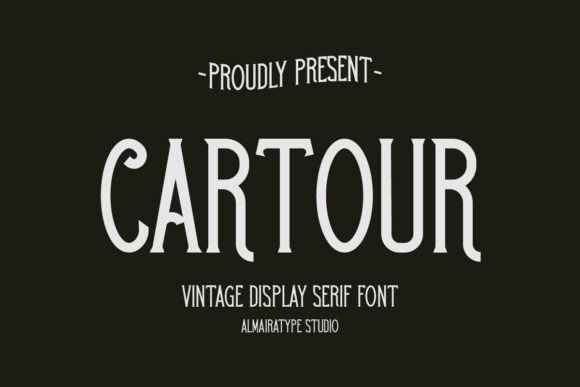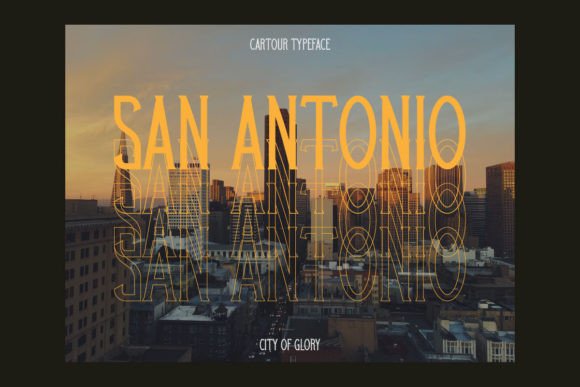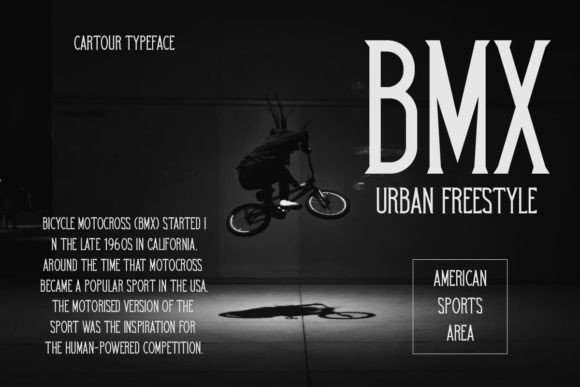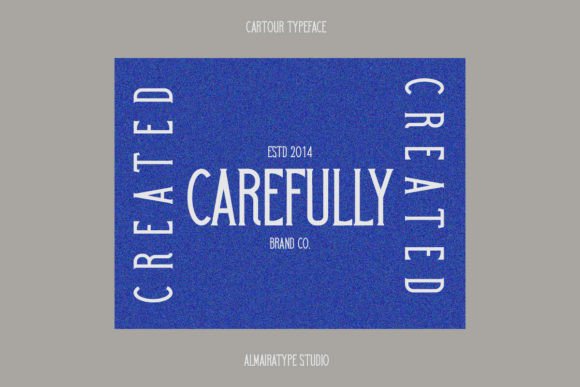
Cartour Font: Elegant Vintage Serif for Logo Design & Headlines
About the Cartour Font
Crafted with precision, the Cartour Font is ready to bring your ideas to life. Cartour is an elegant vintage serif font. It is suitable for logotypes, headlines, corporate identity, brand identity, apparel industry, posters, music, movies, games, magazines or any of your creative design projects.
Cartour Font Usage Examples
Cartour Font Example